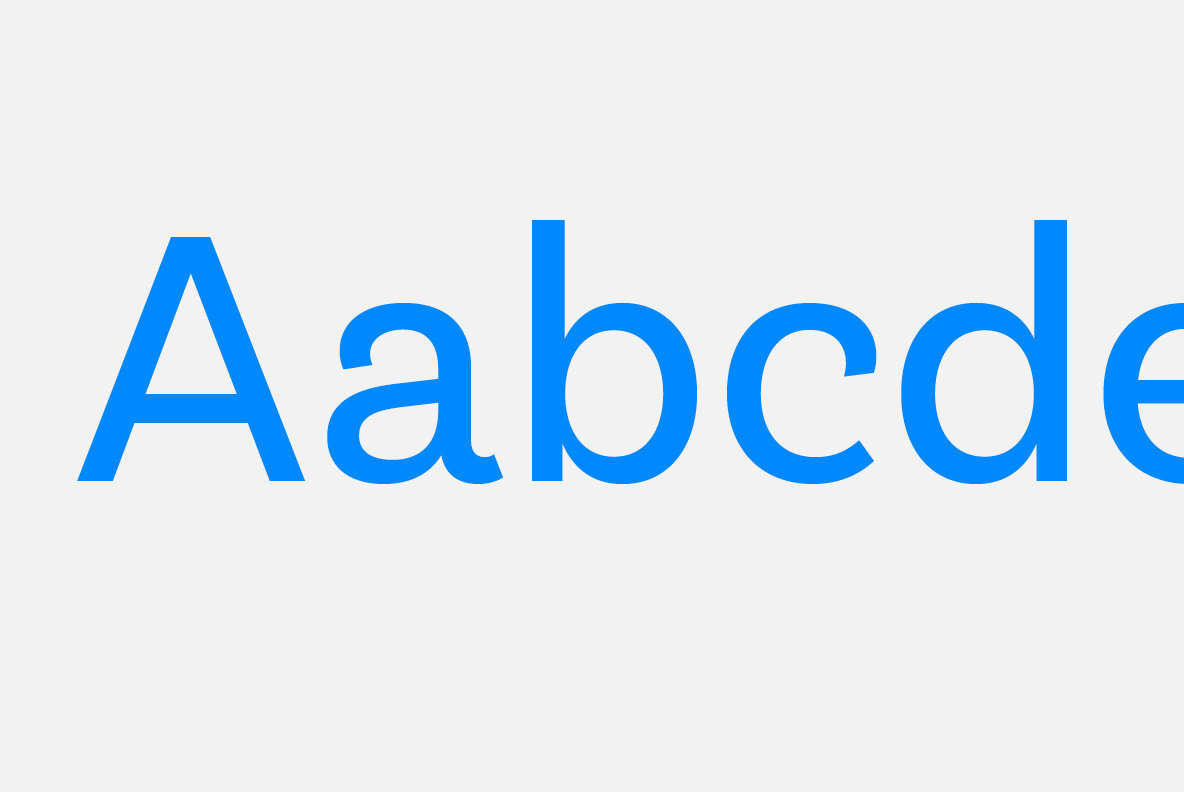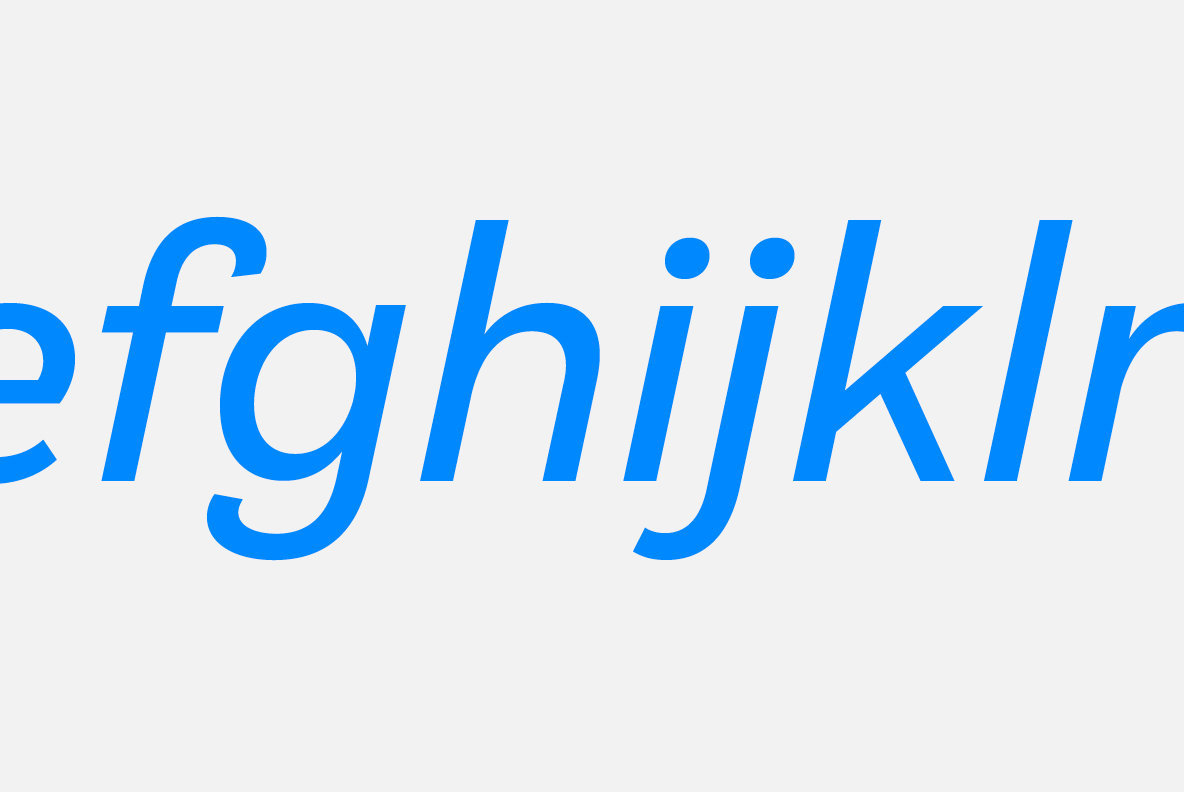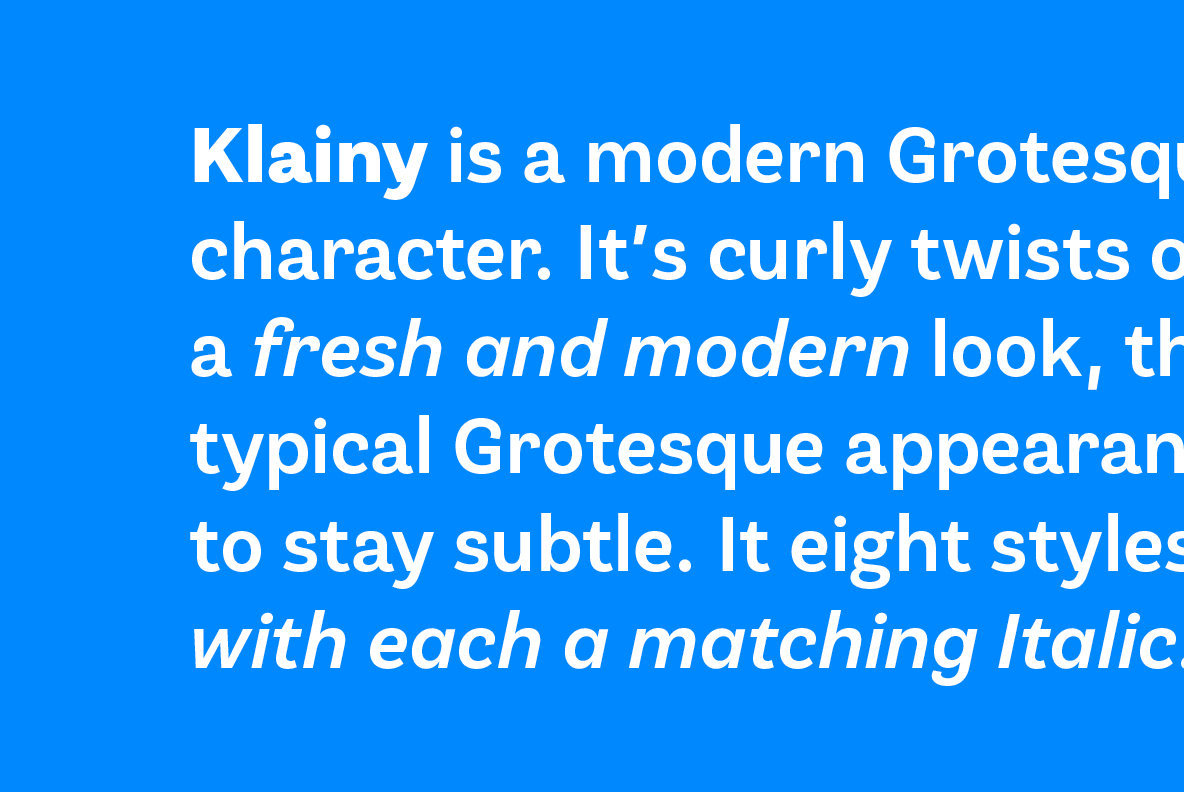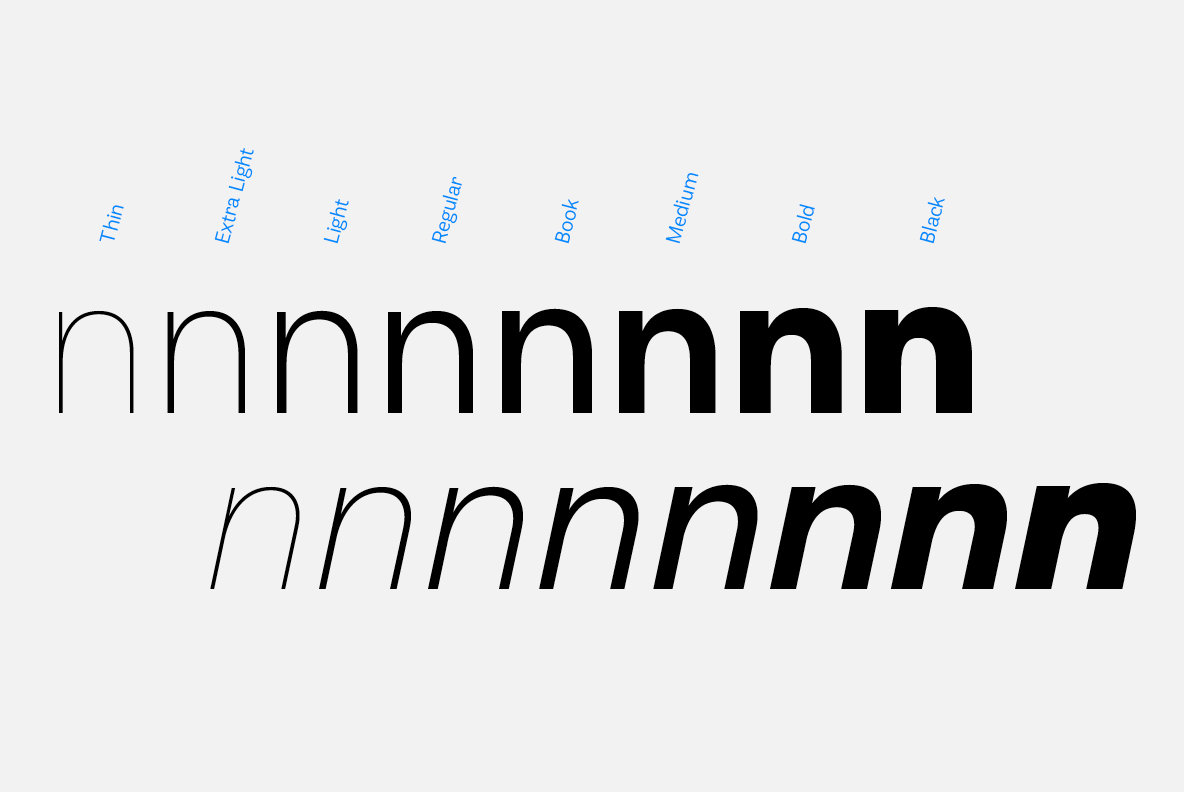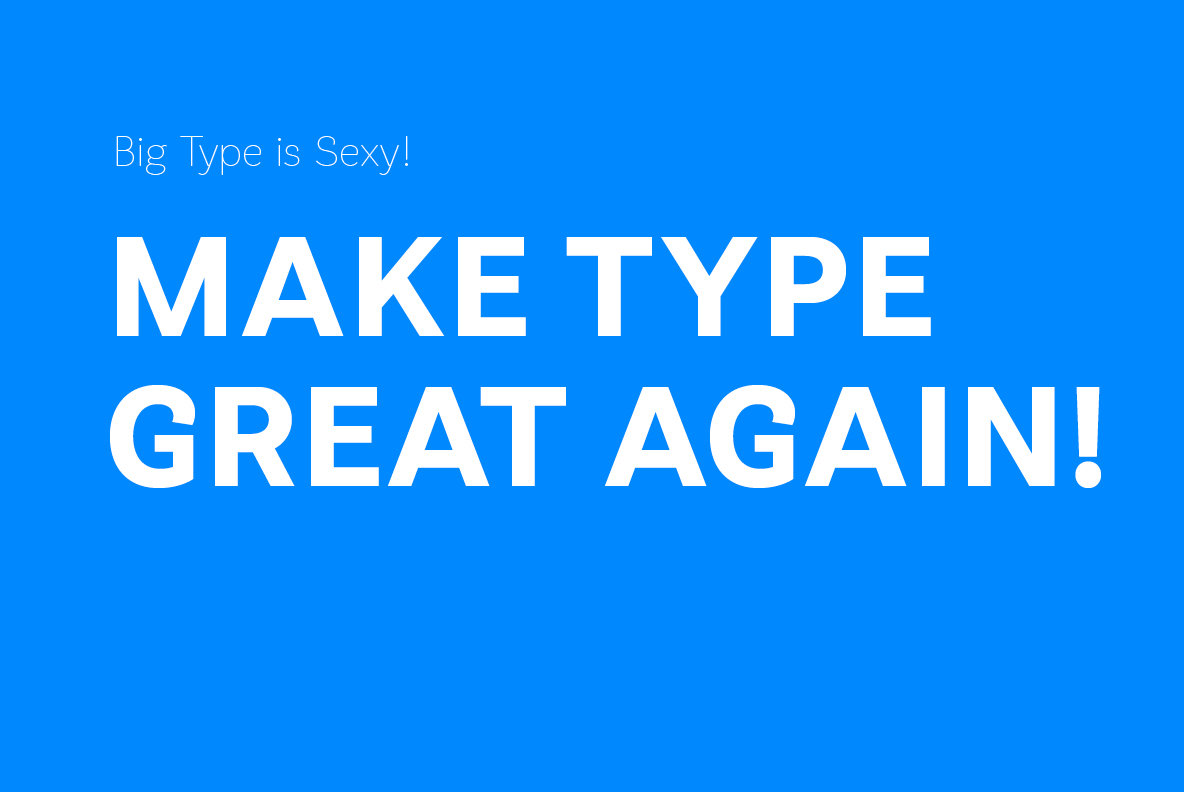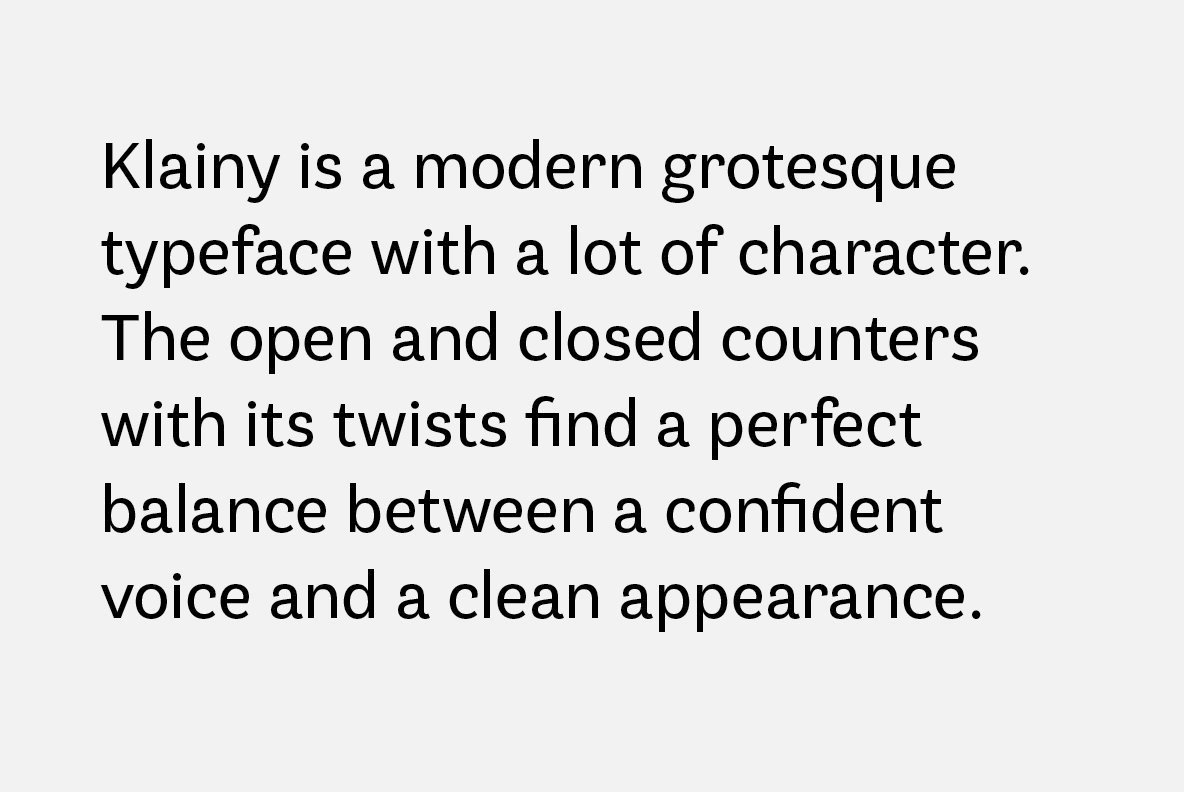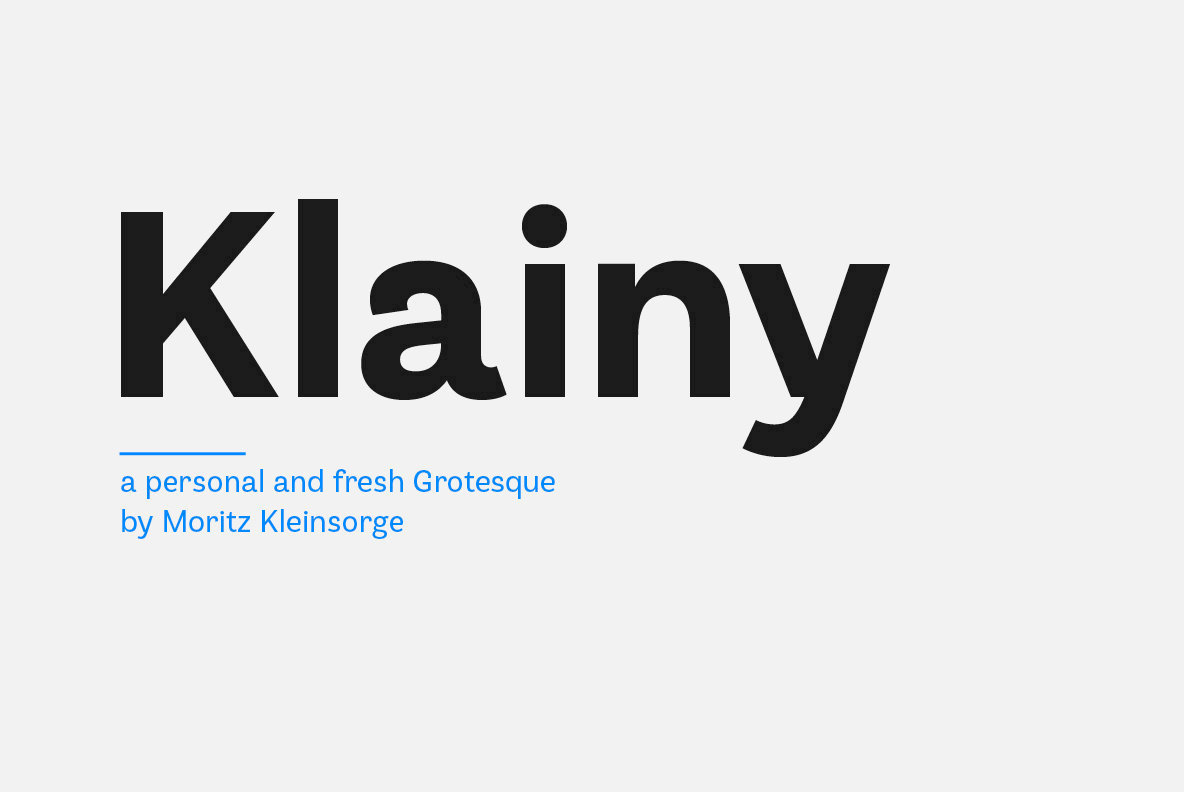
Klainy Font Family
Klainy is a modern Grotesque typeface with a lot of character. The open and closed counters with its twists find a perfect balance between a confident voice and a clean appearance.
The subtle bends perform well in display sizes as an eye-catching element of the typeface. Yet, the familiar Grotesque appearance makes sure that it is comfortable to read in smaller body texts. Klainy is simply a true allrounder.
Designed by Moritz Kleinsorge, Klainy comes in eight styles ranging from Thin to Black, each with a matching Italic. More than 500 characters and a lot of Open Type Features make Klainy a reliable companion for all your awesome projects.